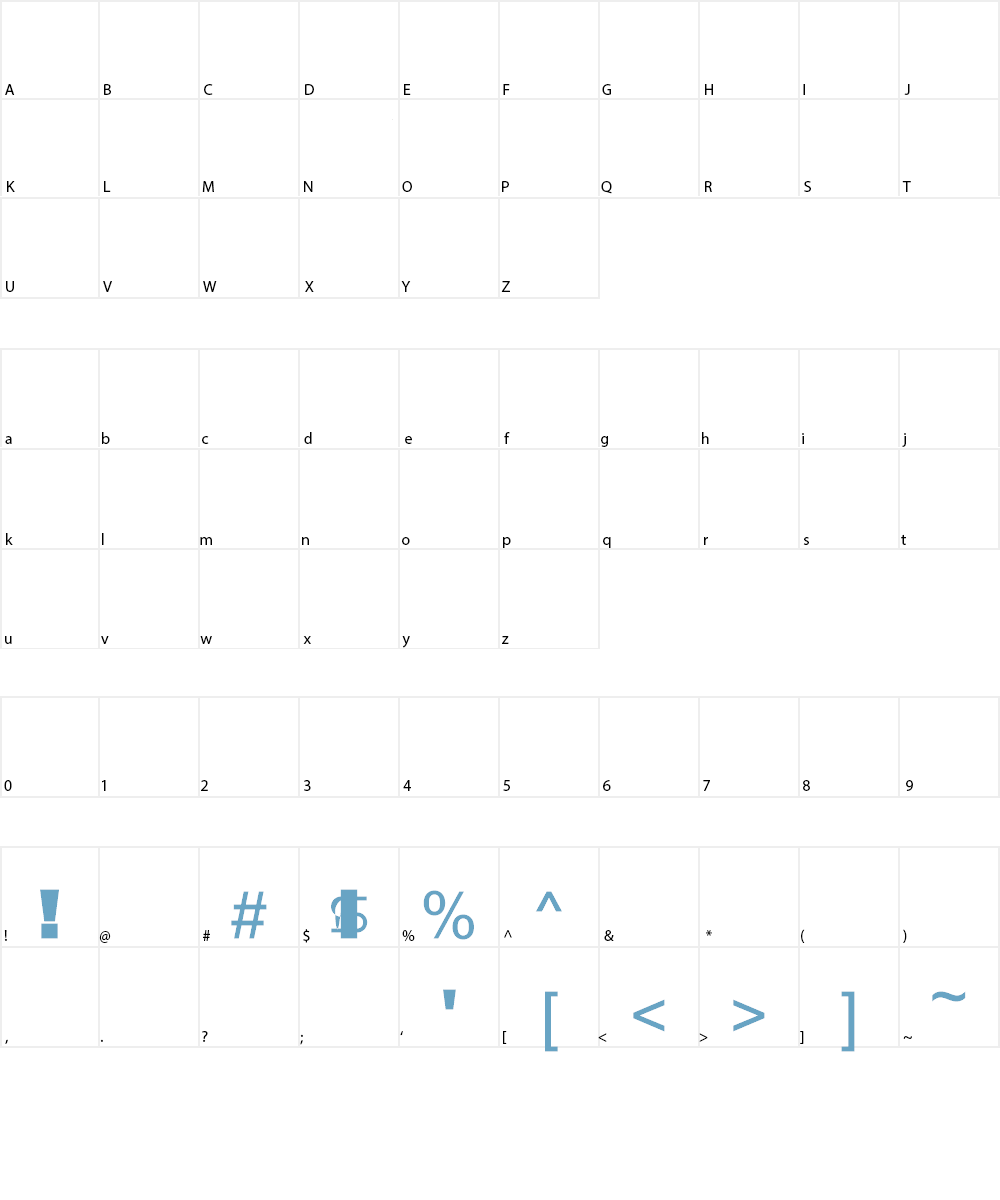
It’s my firm conviction that every font collection needs a good pseudo-Cyrillic typeface, and this one is mine. Based on lettering from a 1925 Soviet poster by one very strange (and unidentified) comrade, the font is named after the main character is Fyodor Dostoyevsky’s Crime and Punishment and was, not coincidentally, Boris Badenov’s favorite swear word.